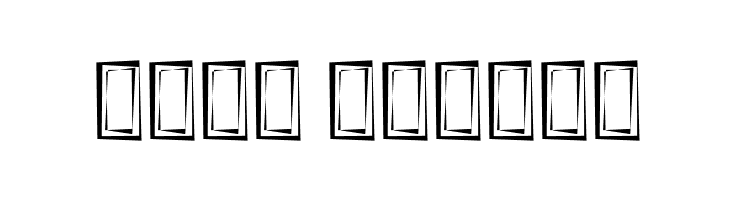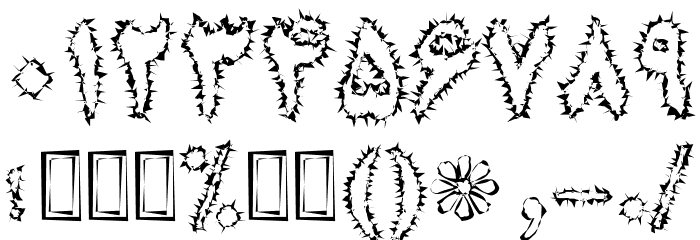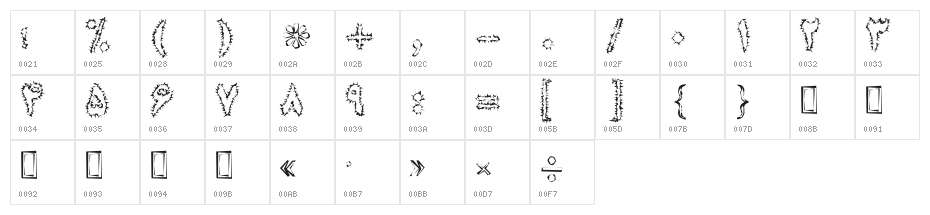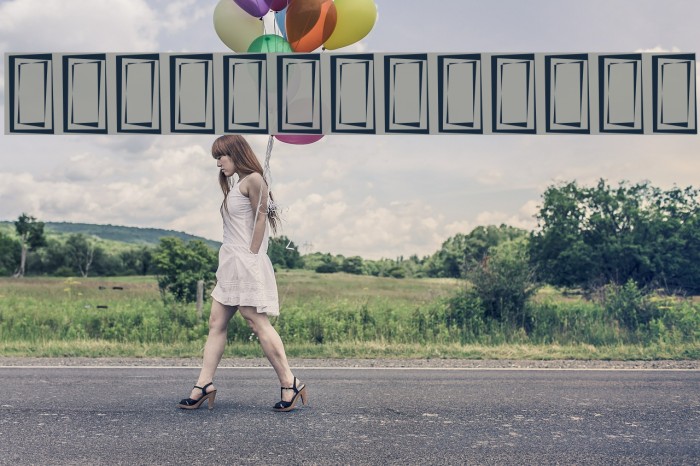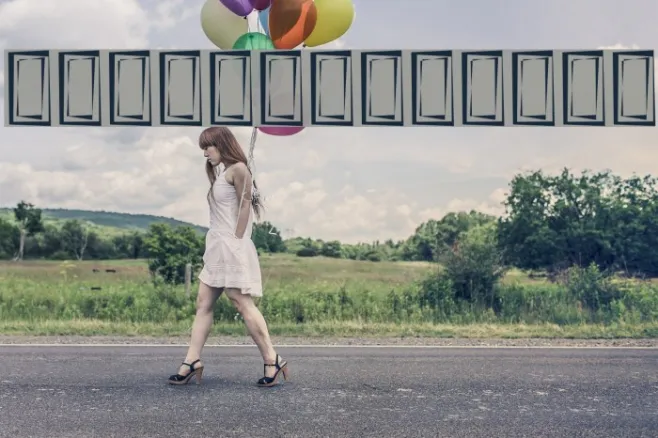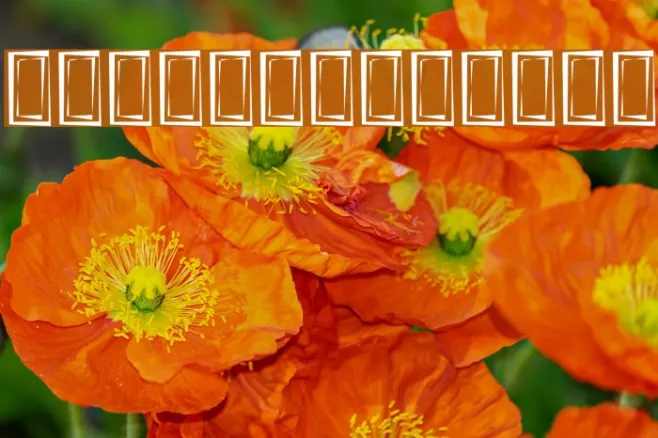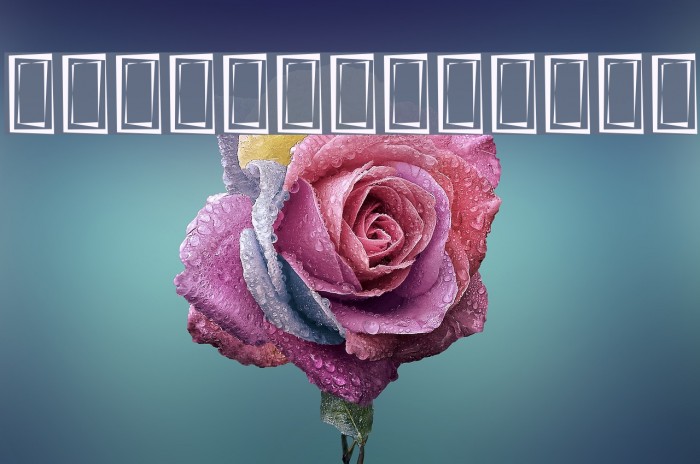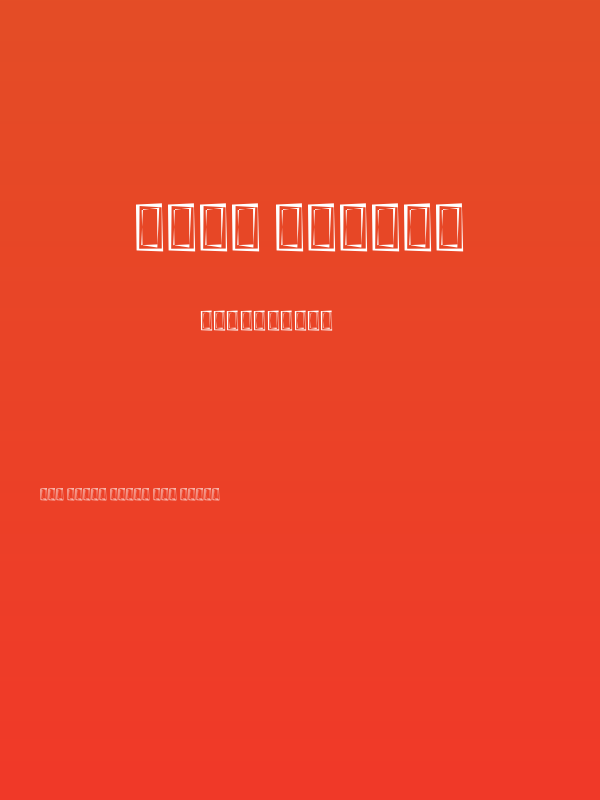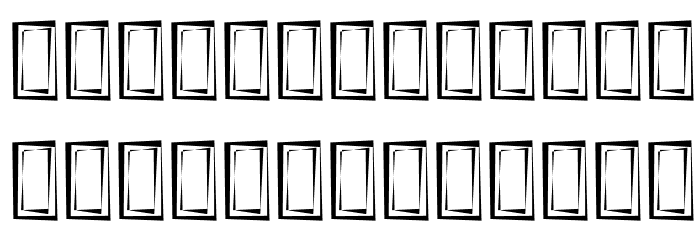
Titr Cactus Font
Titr Cactus Description
This font features a unique and striking design, with each character adorned with sharp, thorn-like elements reminiscent of a cactus. The bold and decorative style makes it stand out, with each letter and number crafted to resemble a spiky plant. The font's playful yet edgy appearance is perfect for projects that require a distinctive and eye-catching typeface. Its intricate details and bold presence make it suitable for creative and artistic applications.
| Proposed Projects | Ideal for posters, album covers, event invitations, and branding that seeks a bold, artistic flair. |